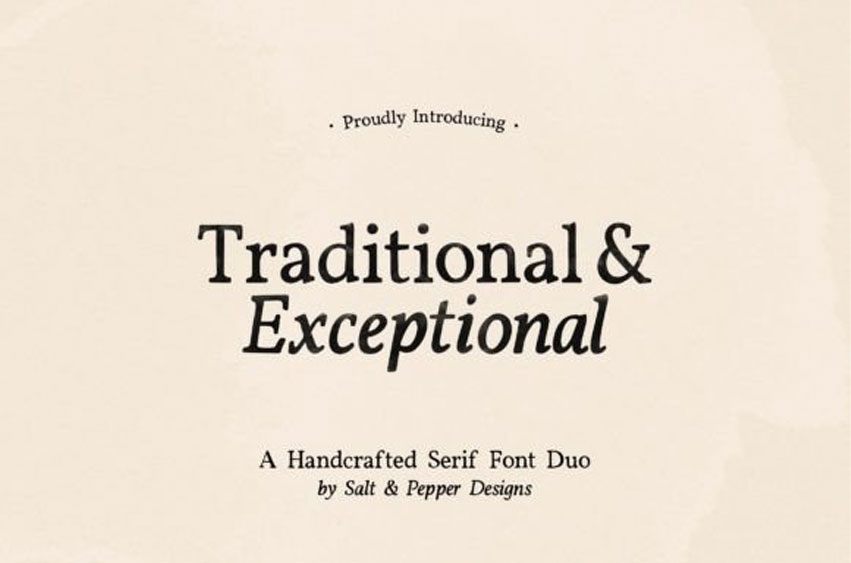
Traditional and Exceptional Font
Traditional and Exceptional Font is a clean and solemn serif font that will help you create gorgeous, impeccable designs every time!